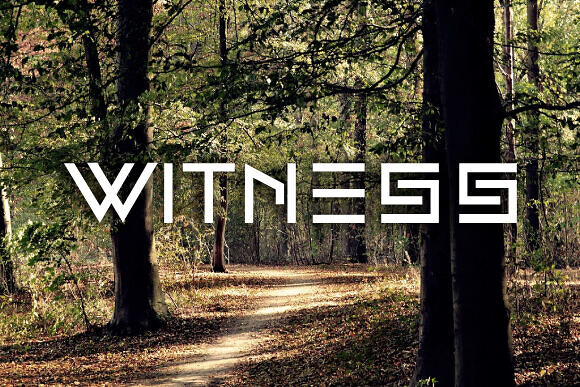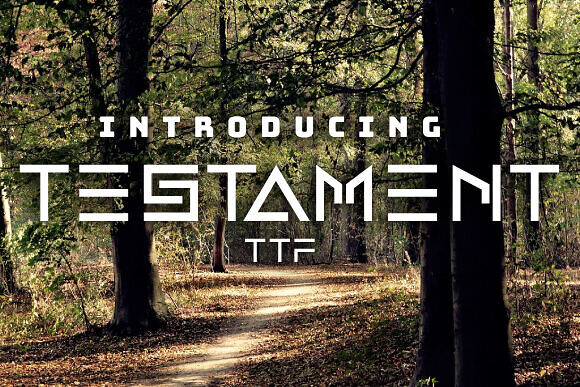
Testament Font
Testament is stylish font that will make your designs look gorgeous. Use this font on posters, flyers and t-shirts.
Designed by: Vladimir Nikolic